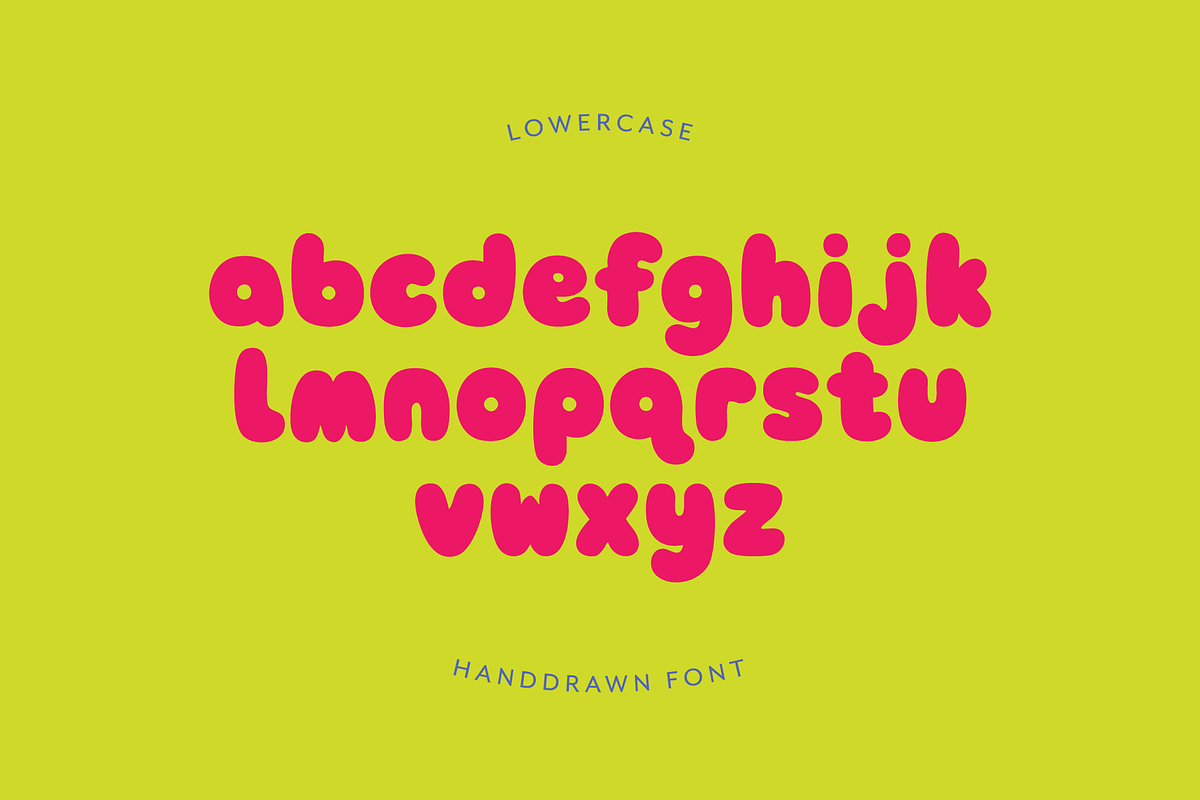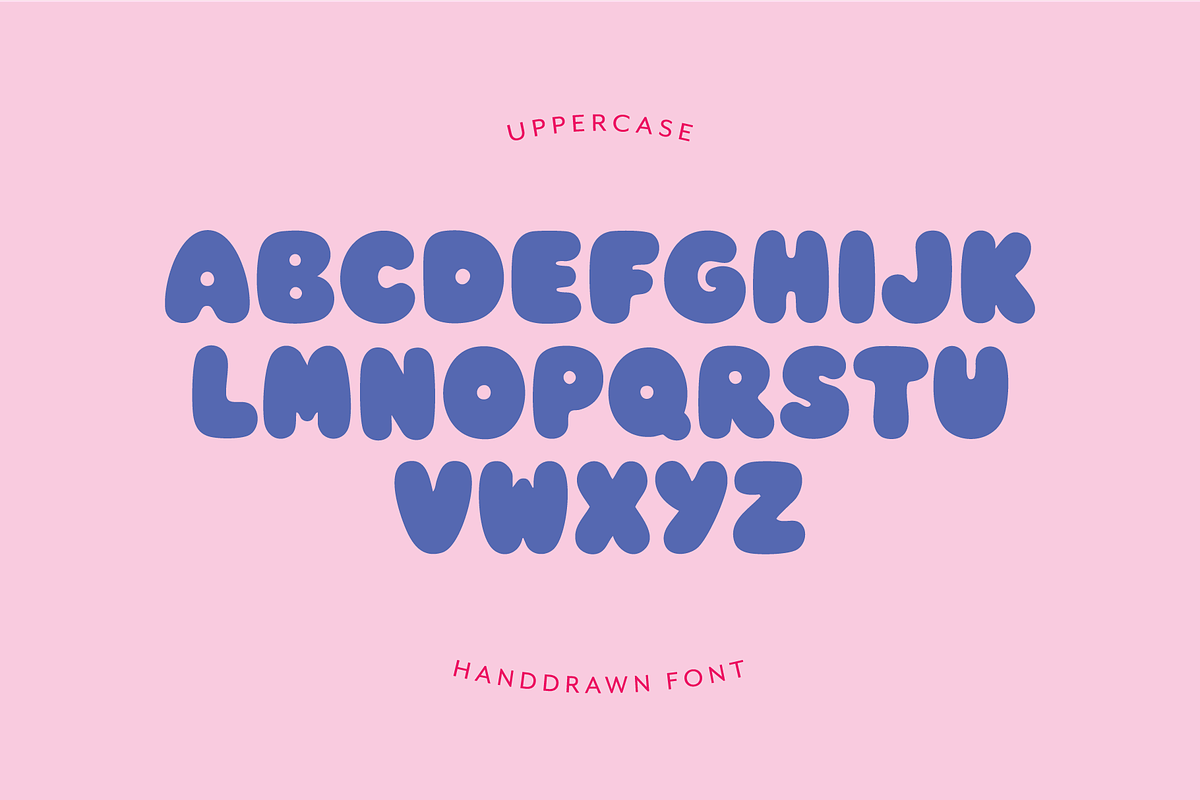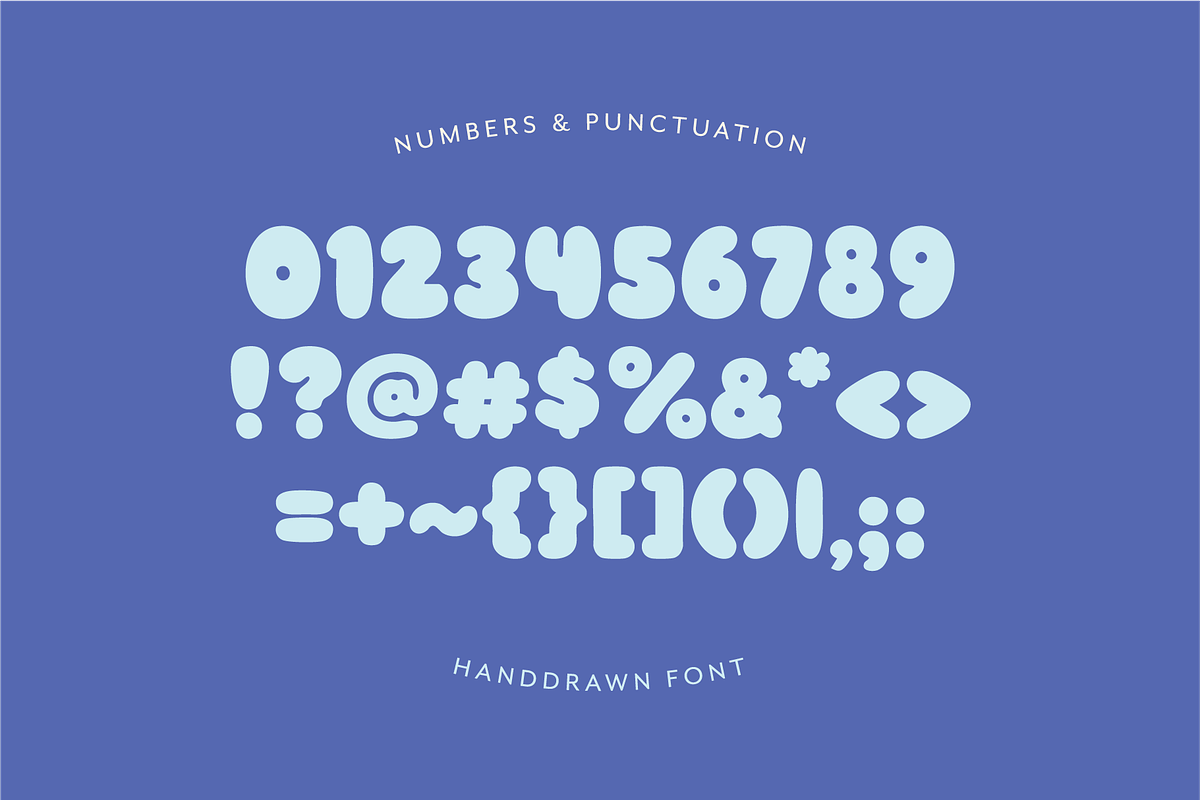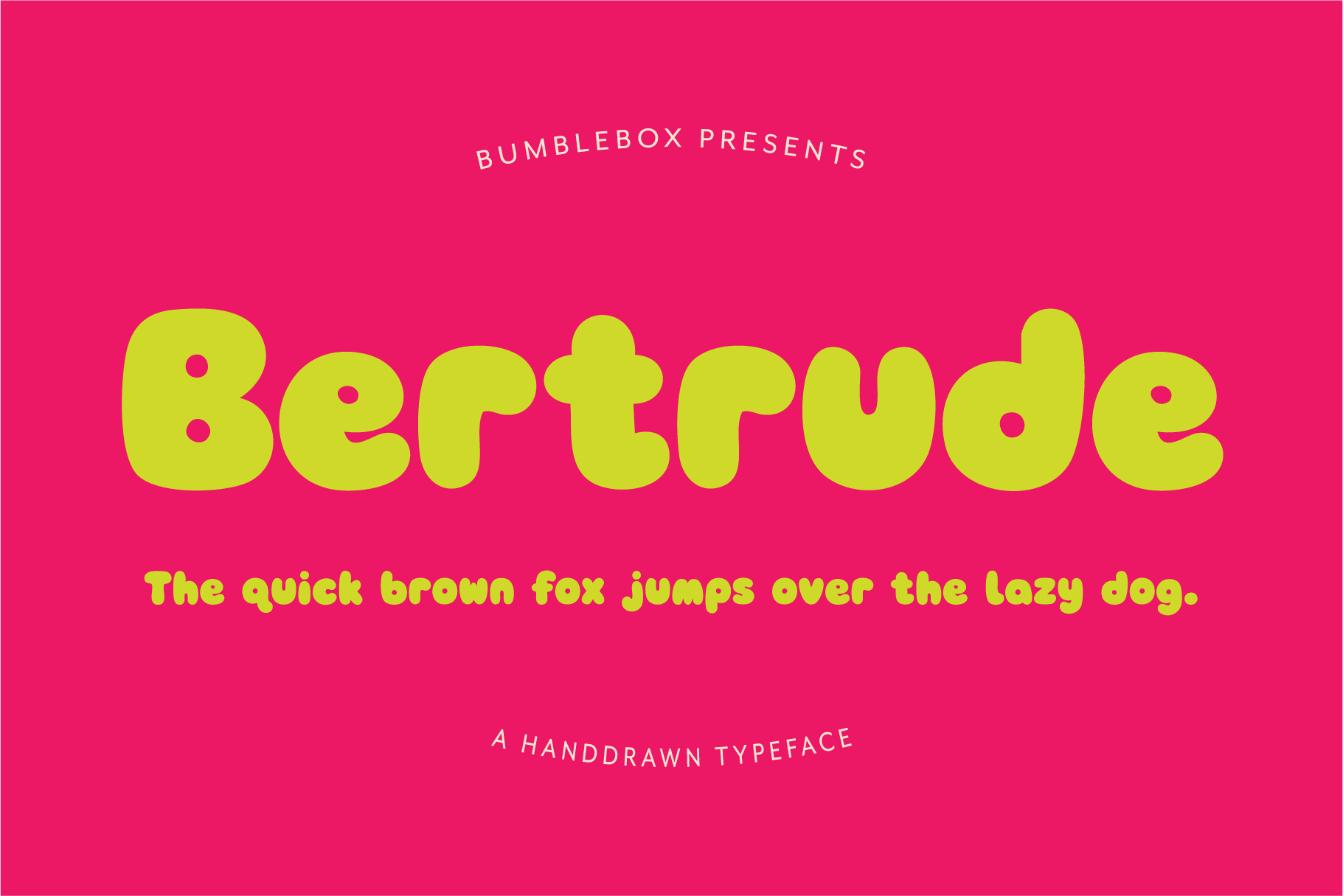
Bertrude - A Bold Bubble Font
Meet Bertrude.
She's chunky. She's charming. She's absolutely not interested in fitting in.
Inspired by quirky vintage names and hand-drawn lettering, Bertrude brings a big dose of playful personality to every project. With her plump curves, wonky charm, and delightfully imperfect details, she's the typeface equivalent of your favourite eccentric aunt who bakes incredible cookies and says exactly what's on her mind.
Perfect for kids' products, stickers, colouring books, greeting cards, packaging, social media graphics, classroom resources, party invitations, Cricut projects, and brands that aren't afraid to have a little fun.
Bertrude is bold enough to grab attention, friendly enough to make people smile, and quirky enough to stand out from the crowd.
Bertrude plays well with bright colours, retro designs, playful branding, and anything that could use a little extra joy.
Warning: Side effects may include excessive smiling, spontaneous creativity, and an irresistible urge to make everything bigger and bouncier.